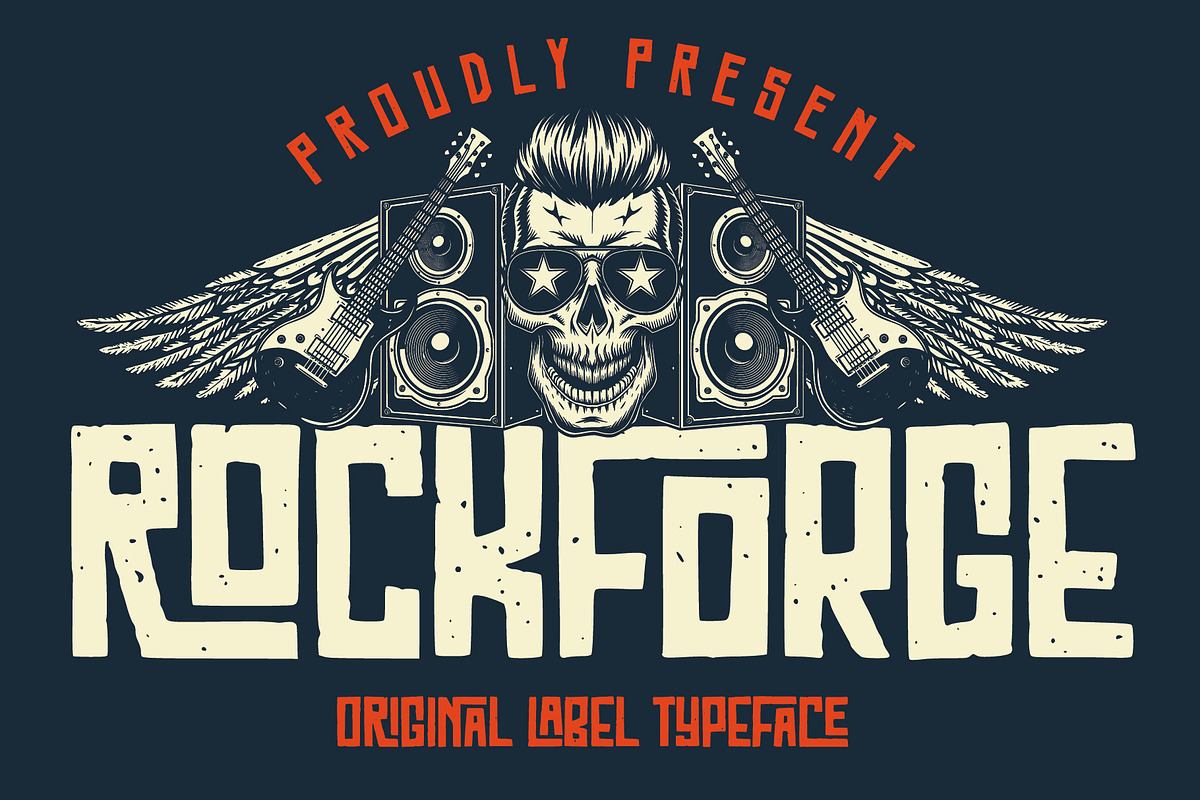
Rockforge Label Font Free Download is a bold, industrial-inspired typeface designed to make a statement. With its strong, stamped letterforms and slightly distressed edges, this font is perfect for product labels, branding, posters, signage, and vintage-style designs. Its robust and rugged design gives it a powerful, handcrafted look that stands out in both print and digital formats.
Using the Rockforge Label Font Free Download adds a sense of strength, authenticity, and character to your projects. Whether you’re working on a retro-inspired logo, a handmade product label, or a vintage event poster, this font brings a unique and bold personality to your design.